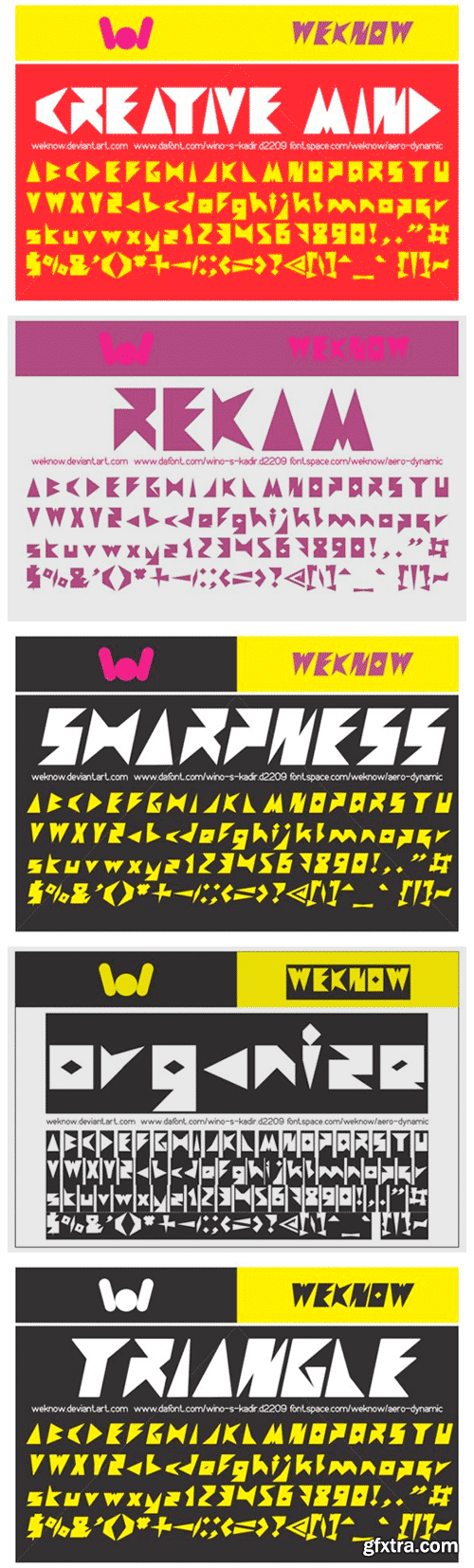
Creative Mind Font
Creative mind celebrates abstract shapes in all their eclectic beauty. This playfully conceptual display typeface font will look truly outstanding in a wide range of contexts.